1. Bergita Font
Bergita is a handwritten font with a modern style. This calligraphic font feels natural and will bring a modern touch to classical designs.
Author : AsaharStudio
2. Sunderlines Font
Sunderlines is a typeface with a smooth character. It’s elegant and can be used for a large range of projects.
Author : JavaPep
3. Original Sin Font
Original Sin is something new, exciting & elegant.
The Original Sin font breathes an relaxed vibe, making it perfect for many occasions.
Author : Incools Design Studio
4. Molyssa Font
Molyssa is a modern calligraphy script. The font is designed by hand and features a modern look and feel. It has a natural fool.
Author : maydhen studio
5. Adelitha Font
Adelitha is a beautifully structured and crafted script font, suitable for display and headline design scapes. This is a wonderfully well weighted script, and is legible without compromising on style.
Author : josgandos
6. Ahsan Calligraphy Font
Ahsan Calligraphy is a script font with contemporary, enlightened accents. It includes full set of gorgeous uppercase and lowercase letters, numerals, a large range of punctuation and ligatures. This script is perfect for a wide range of designs!
Author : Creative Tacos
7. Anabeth Font
Anabeth is a compelling and elegant script font, handwritten with care and precision. This font includes several ligatures and alternates to help propel your designs in unique and fascinating ways.
Author : No Gravity Type
8. Famous Font
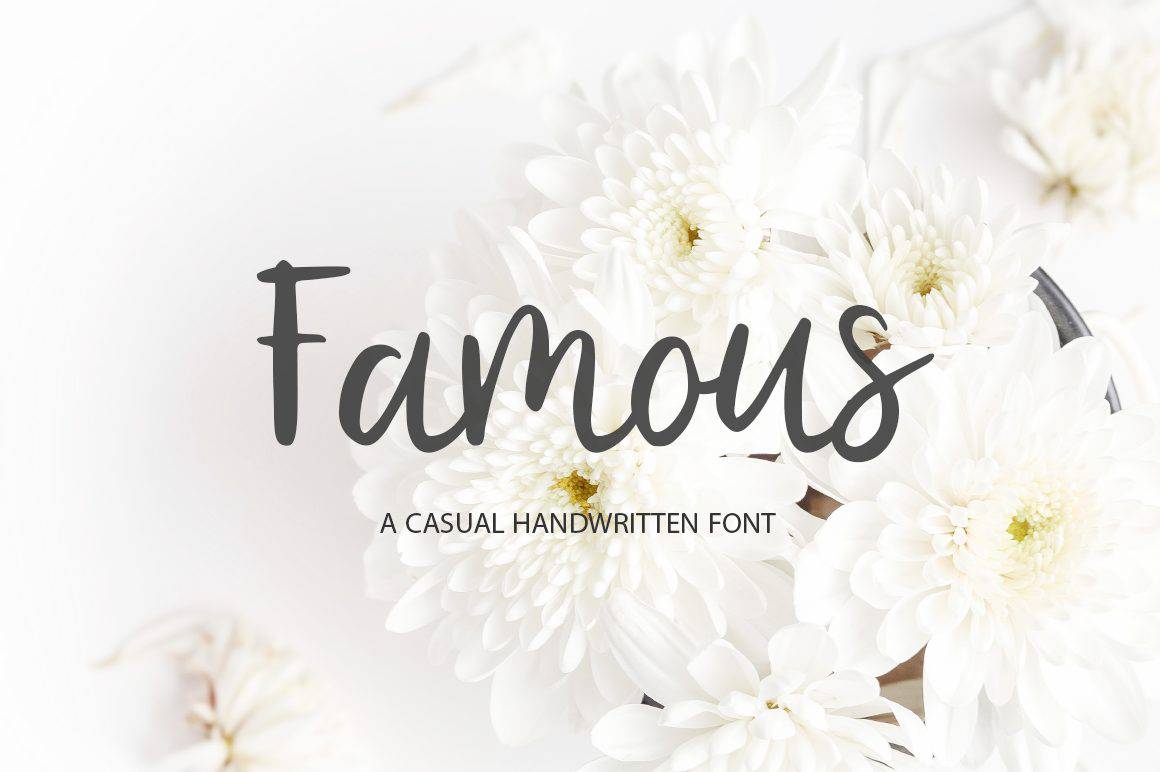
Famous is a romantic and easy to read font, perfect for displays for the most special of moments. With a variable baseline and even weight, Famous is a wonderful script option to use time and time again.
Author : Pasha Larin
9. Stepbrother Font
Stepbrother is a chic font, with every single letter crafted carefully. This font adds a lot of charm and uniqueness to any design given its handwritten nature and style.
Author : Studio_Art
10. Natasa Font
Natasa is a beautiful script, crafted through hand-styled calligraphy. This is a modern and romantic font style, complete with decorative characters and a dancing baseline.
Author : zulkhairilettering